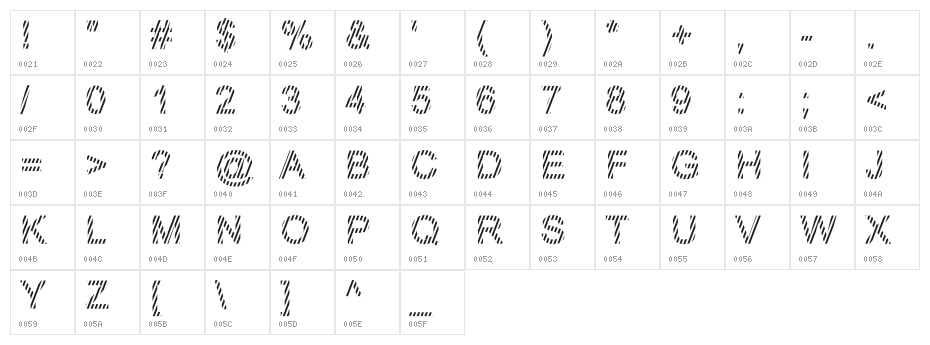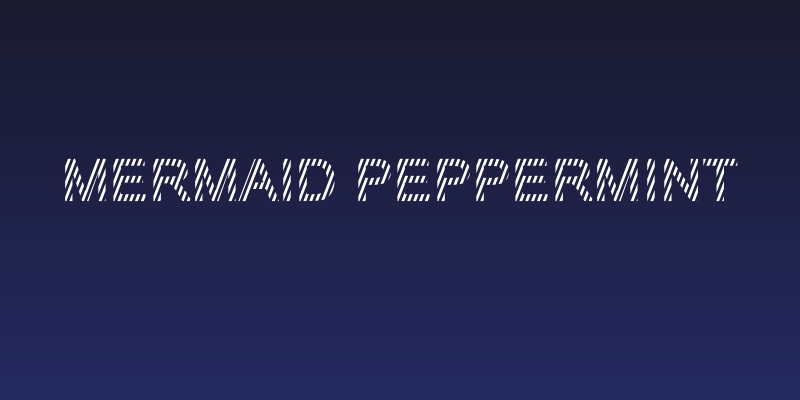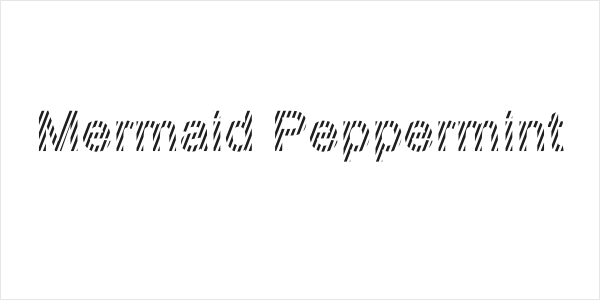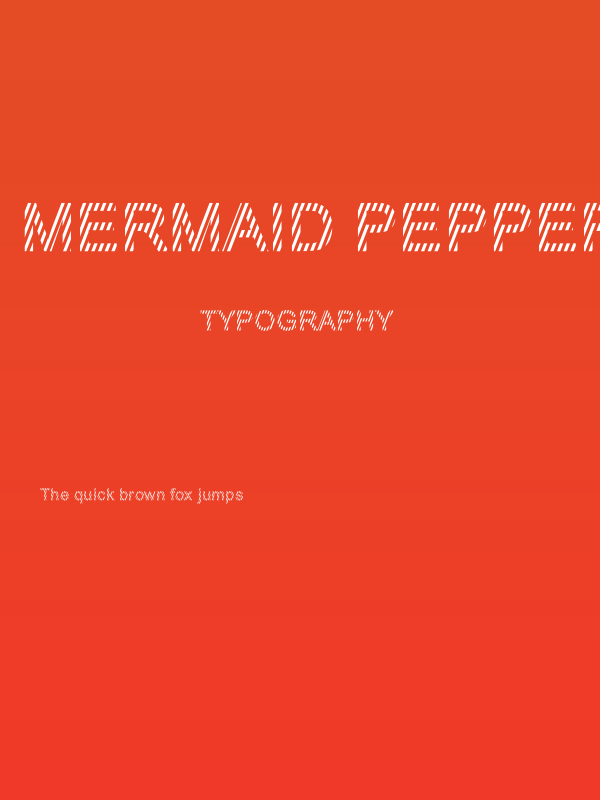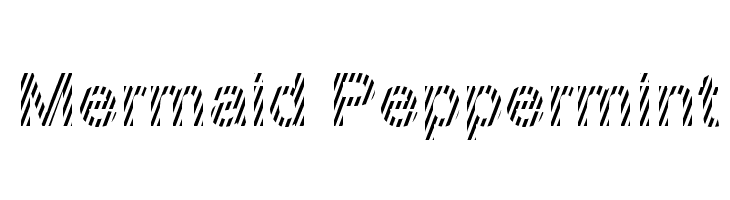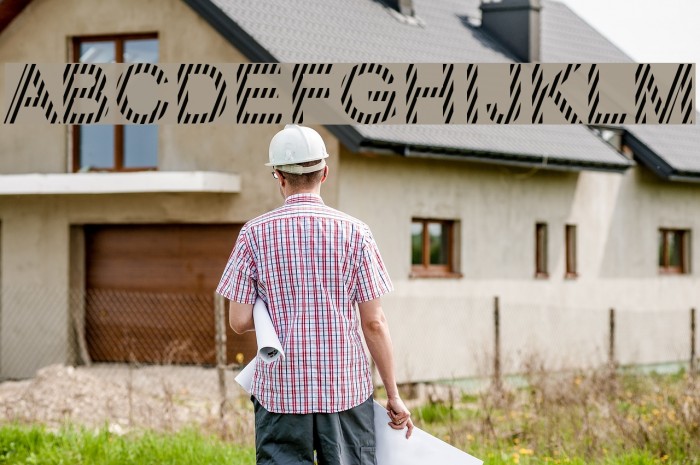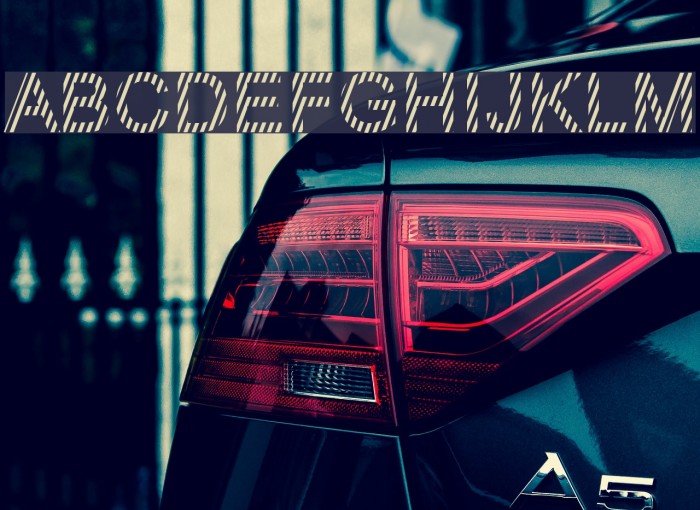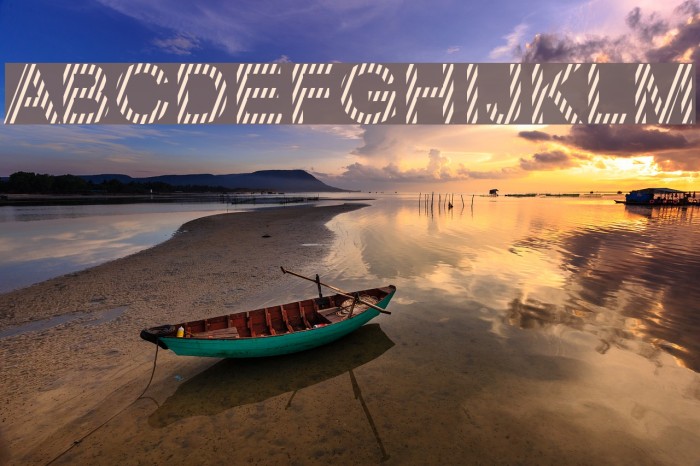
Mermaid Peppermint Font
Mermaid Peppermint Description
This font features a unique, decorative style with diagonal striped patterns running through each character, giving it a dynamic and playful appearance. The characters are italicized, adding a sense of motion and fluidity. The uppercase and lowercase letters maintain a consistent design, with rounded edges and a slightly condensed form. The numerals and special characters follow the same striped pattern, ensuring uniformity across the font. This font's distinct style makes it stand out, ideal for creative and eye-catching designs.
| Width | Condensed |
| Use Case | Logos, Headlines, Posters |
| Proposed Projects | Ideal for branding, posters, and creative projects that require a bold and distinctive look. |